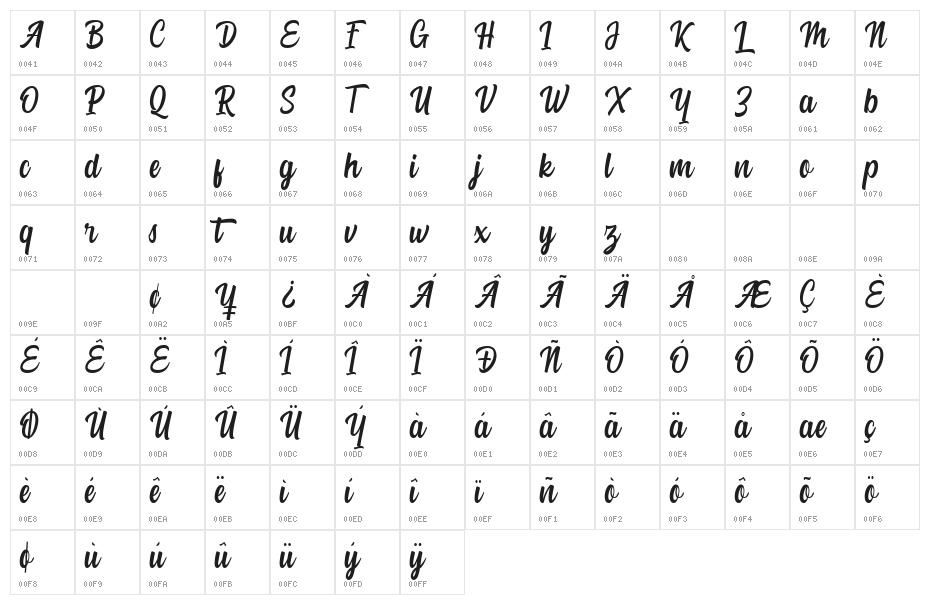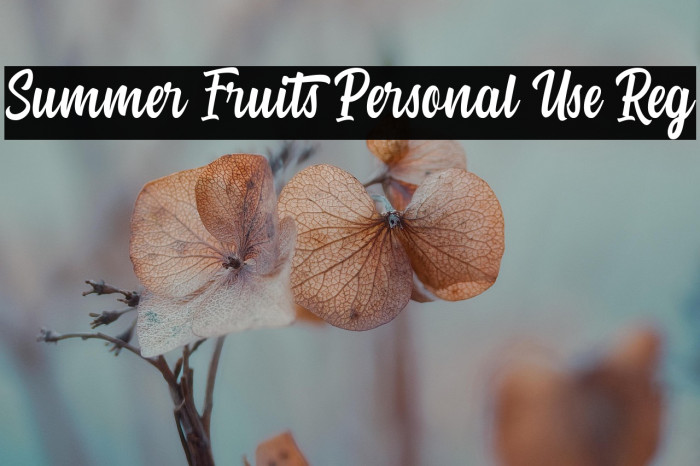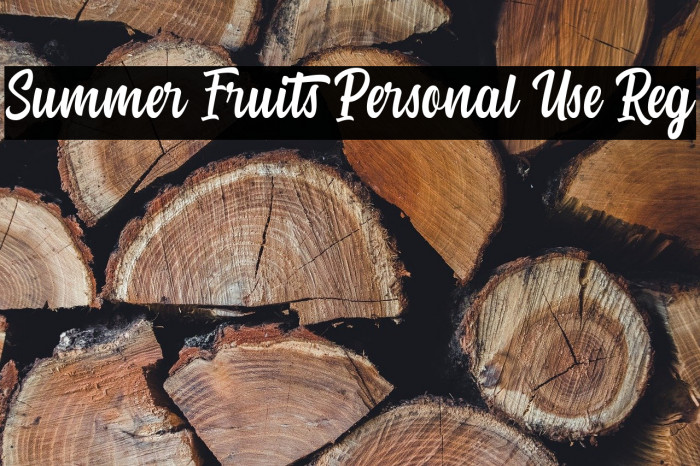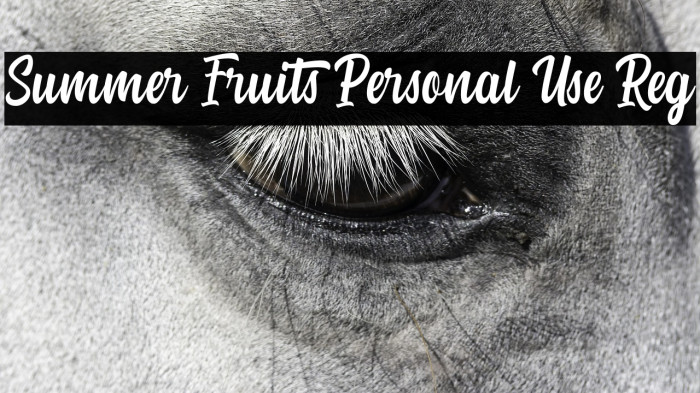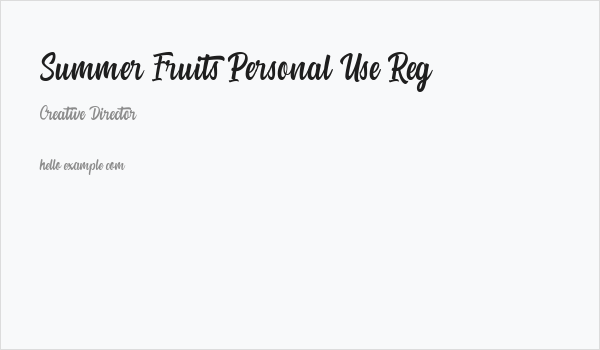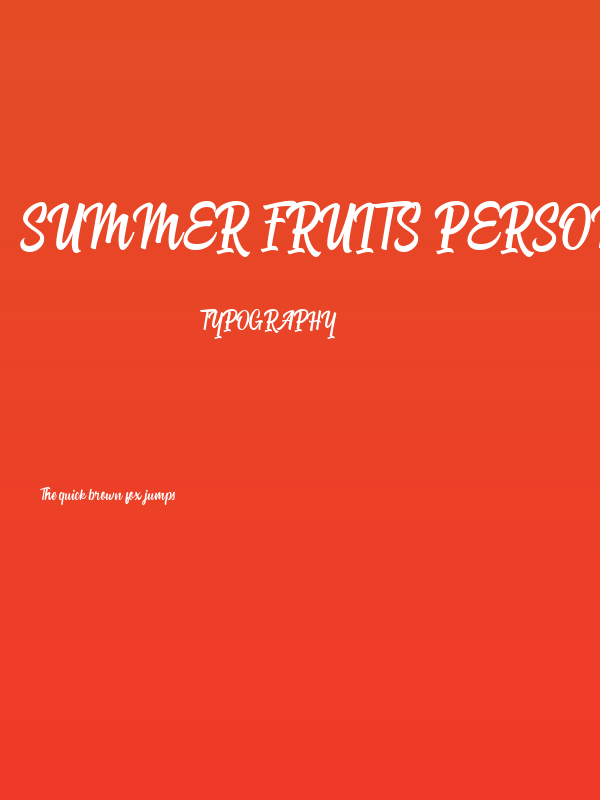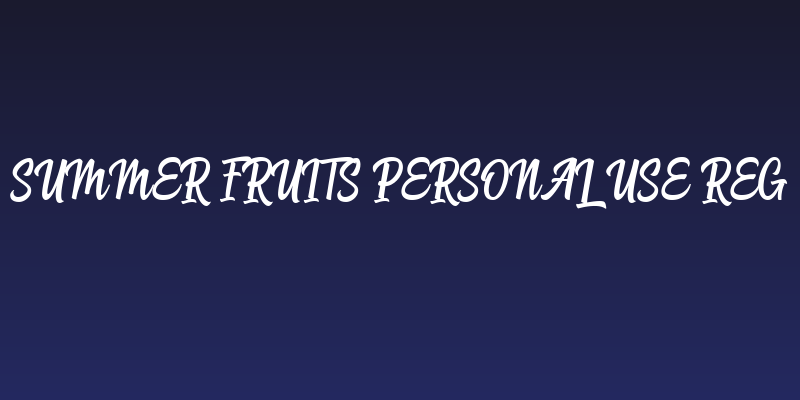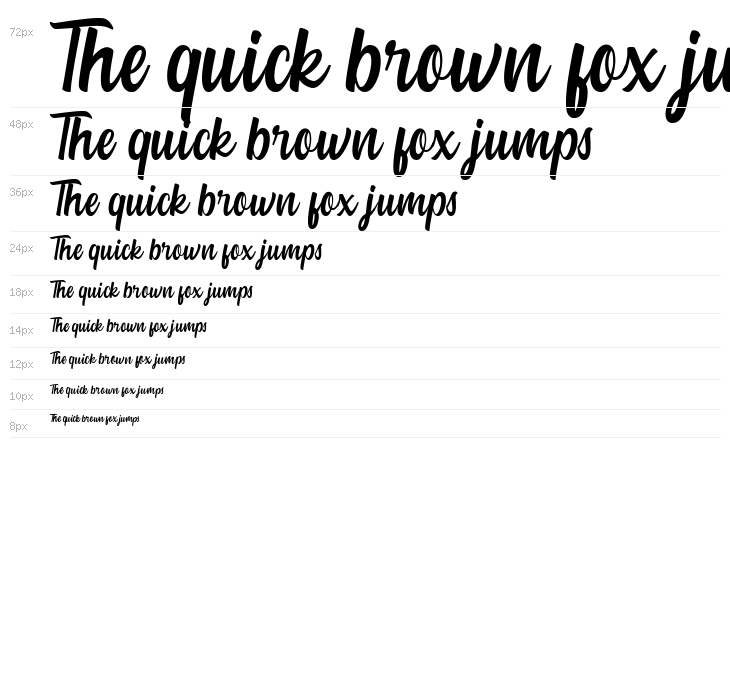
Summer Fruits Personal Use Reg Font
Summer Fruits Personal Use Reg Description
This font features a bold and dynamic script style, characterized by its fluid and connected letterforms. The uppercase letters are slightly more formal, with elegant curves and a consistent slant, while the lowercase letters exhibit a playful and casual appearance. The strokes are thick and consistent, providing a strong visual impact. The overall style is reminiscent of hand-lettered calligraphy, making it suitable for designs that require a personal and artistic touch. The font maintains a balanced and harmonious look, with each character flowing seamlessly into the next.
| Proposed Projects | Ideal for wedding invitations, greeting cards, branding projects, and any design that requires a personal and artistic touch. |